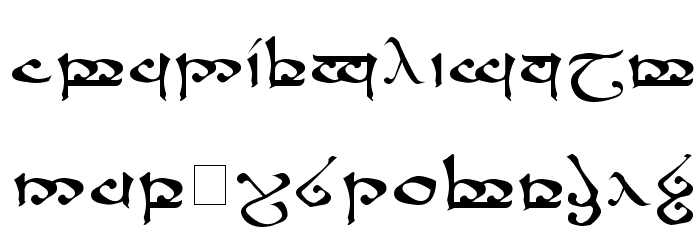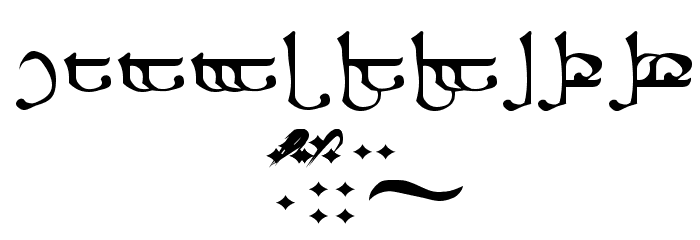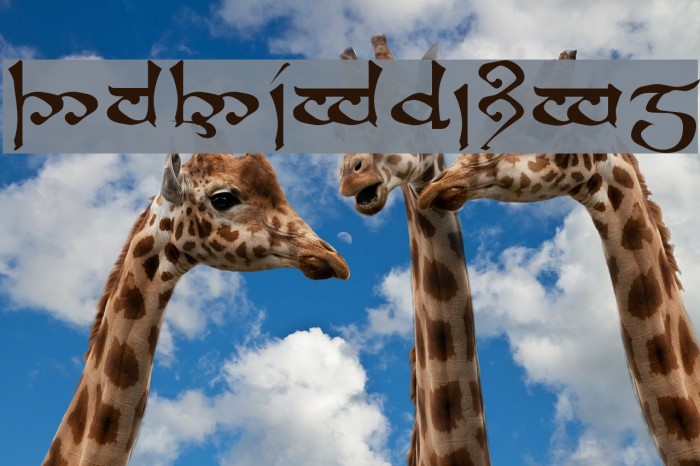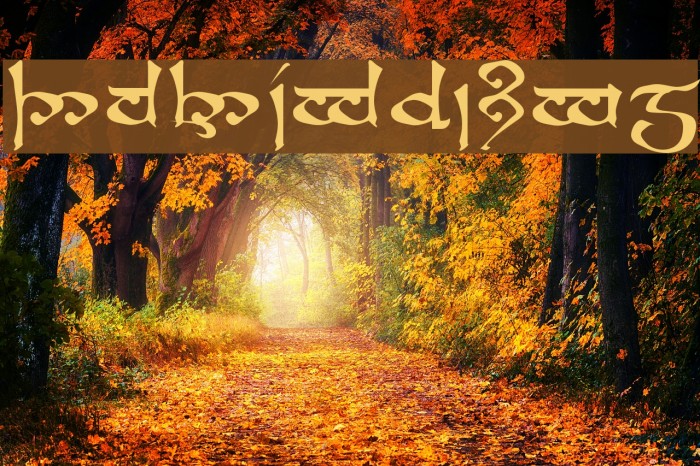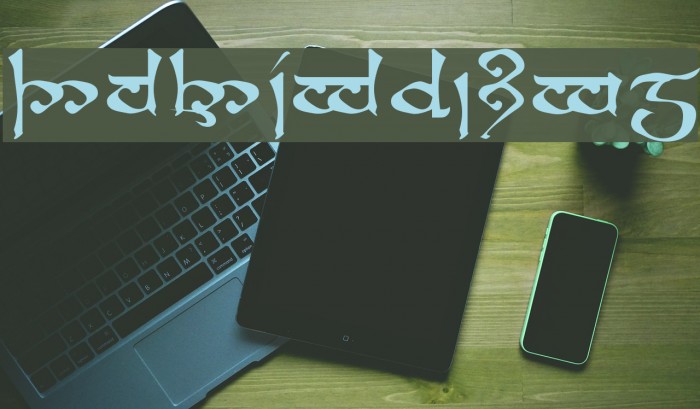
RSMoroma Medium Font
This font features a highly decorative and intricate design, reminiscent of ancient scripts or calligraphy. The characters are ornate, with elaborate curves and flourishes that give it a mystical and historical feel. The strokes are bold and varied, with some letters featuring sharp, angular edges while others are more rounded and flowing. This creates a dynamic and visually engaging appearance. The font's unique style makes it stand out, suitable for projects that require a touch of elegance and tradition.
An ornate and decorative font with a mystical, historical feel.
- Proposed Projects: Ideal for fantasy book covers, historical themed posters, or any project needing an elegant, traditional touch.